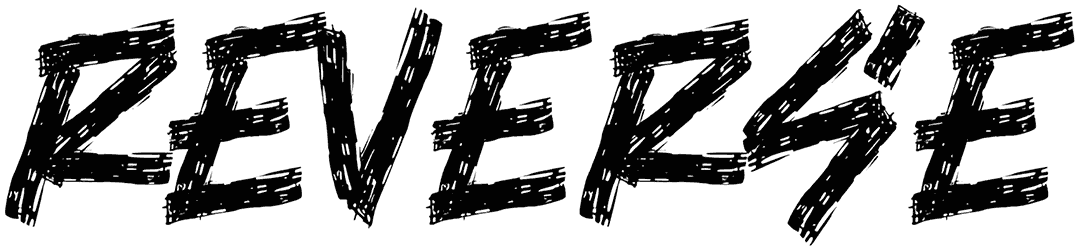
Reverse Font
Reverse is a brush font that is fit for any kind of creative design that needs an artistic touch, including video game posters, graffiti, product packaging, or social media posts.
Due to the oblique and crooked characters of this trash font, it can convey a sense of grunge, disorder, smudgy, or uniqueness to the audience, especially youngsters, and strongly impresses them. Considering all the benefits of this all-caps artwork, the lack of numbers won’t be a serious problem.